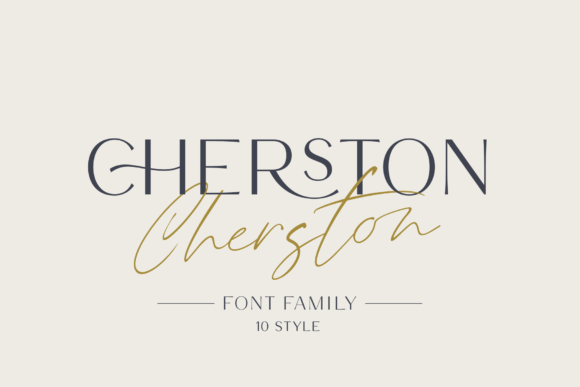
In a world where creativity reigns supreme, Cherston Font emerges as a beacon of brilliance, a masterpiece crafted by the visionary Pasha Larin. This extraordinary display font duo, comprising a captivating script and a bold display font, is an ode to artistic expression, a testament to the boundless power of typography.
Cherston's versatility is its defining trait, a chameleon-like ability to adapt seamlessly to any creative endeavor, from elegant invitations to captivating branding, from whimsical illustrations to stunning digital art. With Cherston as your creative ally, the possibilities are endless, your imagination the only limiting factor.
Unleash the allure of Cherston's script font, its graceful curves reminiscent of a ballerina's poise, its delicate strokes evoking the tenderness of a handwritten love letter. Allow your words to dance across the page, imbued with an enchanting aura that captivates and enchants.
Juxtapose the elegance of the script with the boldness of the display font, its solid strokes commanding attention, its unwavering presence leaving an indelible mark on the hearts and minds of your audience. Make a statement, declare your individuality, and let Cherston's display font amplify your message, transforming it into an unforgettable symphony of visual delight.
Cherston is more than just a font; it's an experience, an immersion into a world of boundless creativity. Its characters are not merely letters; they are brushstrokes of emotion, strokes of genius, fragments of stories waiting to be told.